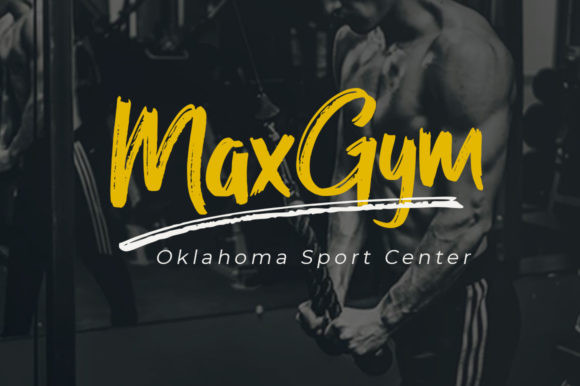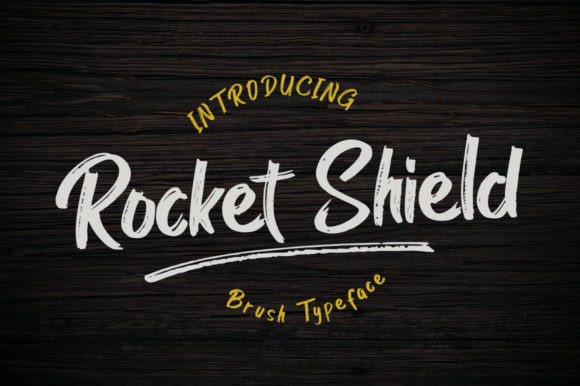
Rocket Shield Font
Rocket Shield is a smoothly textured handwritten brush font with a modern feel. It’s the ideal font for adding an authentic charm to any design project.